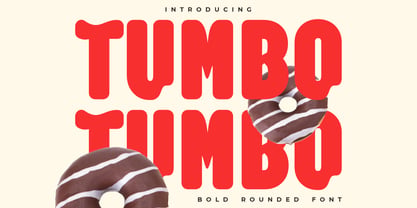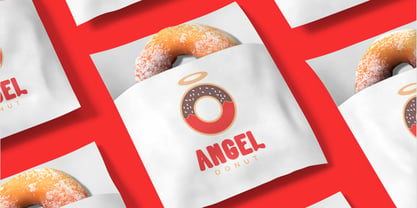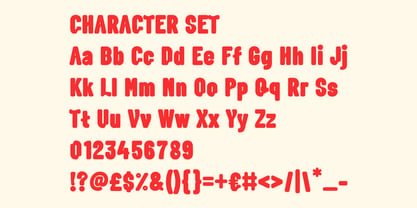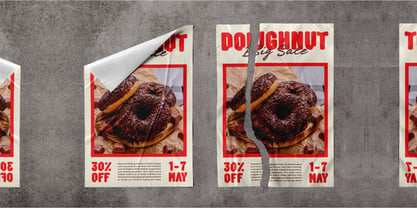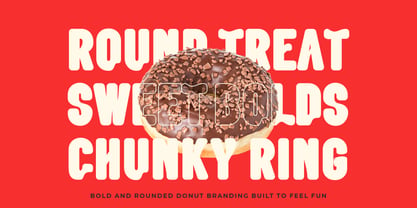
Tumbo
by Shanaf
The Tumbo Font Family was designed by Yesie Erma Yunita and published by Shanaf. Tumbo contains 1 styles. More about this family
Tumbo Bold Rounded Font brings a playful food character with chunky letter shapes and soft corners. The font has a heavy body, rounded terminals, and friendly curves that feel sweet, warm, and easy to notice. Its wide letters create strong impact for logo design, donut branding, bakery identity, dessert packaging, and snack promotion. Designers can use it for product labels, shop signs, poster titles, advertising headlines, menu boards, stickers, and cheerful business branding.
The visual style fits food businesses that want a fun and approachable identity. Tumbo Bold Rounded Font works well for donut shops, bakeries, dessert cafés, candy brands, snack products, and family restaurant concepts. Its rounded structure makes every word feel soft, tasty, and welcoming. The thick letterforms help short names stand out in packaging, logo marks, window signs, food posters, and digital ads. It also supports playful campaigns for sweets, treats, cakes, cookies, and drinks.
This font also reaches beyond donut branding. Use it for any business that needs a cheerful food voice, from breakfast products to dessert boxes. The character set includes uppercase, lowercase, numbers, and punctuation for flexible layout work. Its friendly shape suits branding systems, product packaging, menu design, sales posters, social media graphics, book covers, craft projects, greeting cards, and sticker designs. The font gives food brands a memorable visual tone without feeling complicated.
Designers: Yesie Erma Yunita
Foundry: Shanaf